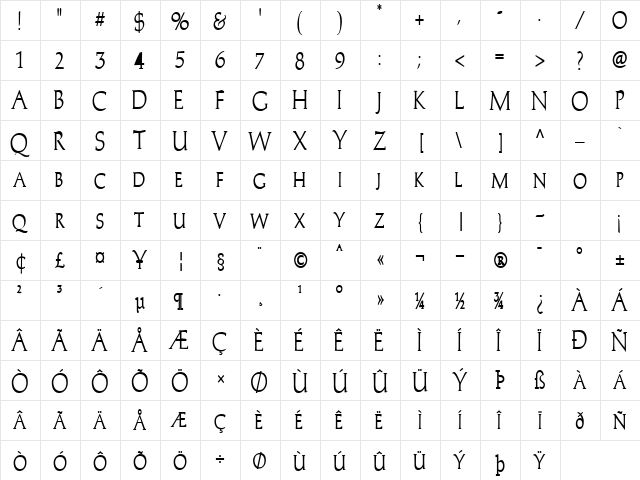
Trajans-Caps-Condensed Bold Font Preview
Design Context for Trajans-Caps-Condensed Typeface
Trajans-Caps-Condensed takes a measured approach to typography — its balanced proportions and neutral character make it a reliable workhorse for both digital and print work. The heavy weight commands attention and anchors typographic hierarchies. Its narrow stance lets it pack a punch even in space-constrained designs.